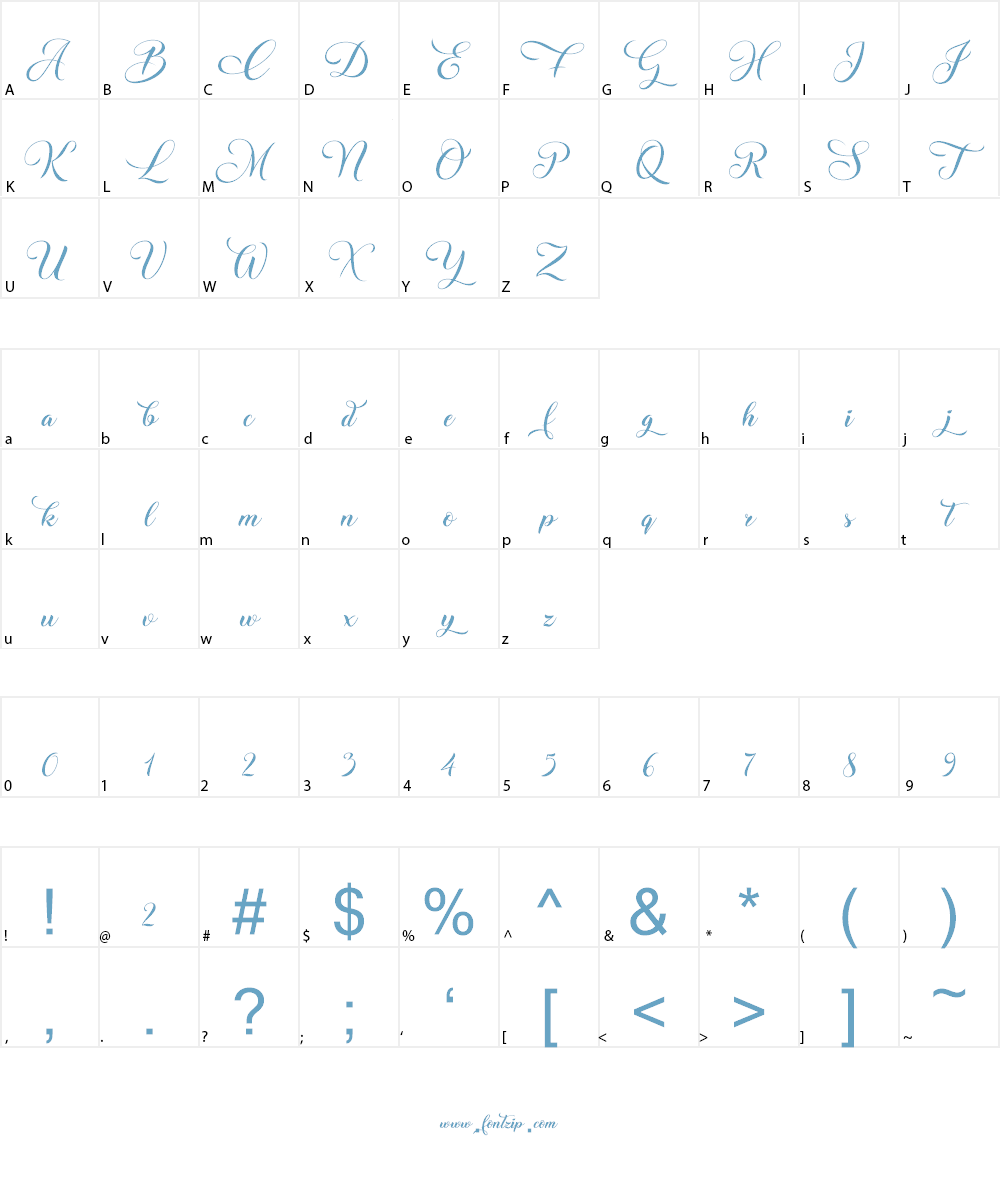
CHRISTMAS WISH is a cursive calligraphy style script that has a monoline version as well.
Full version contains terminals and ligatures for better connection and more natural flow, Eastern and Western European language accented characters.